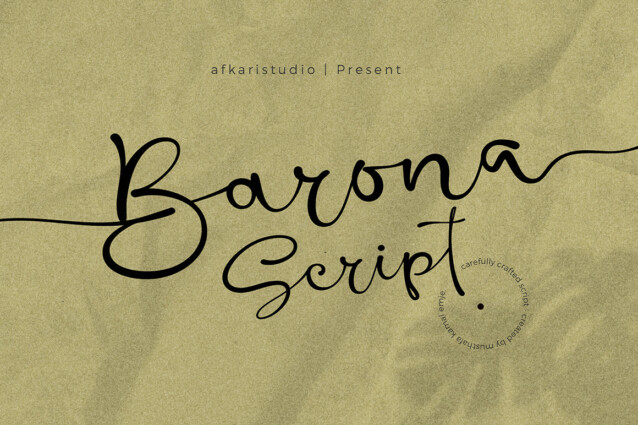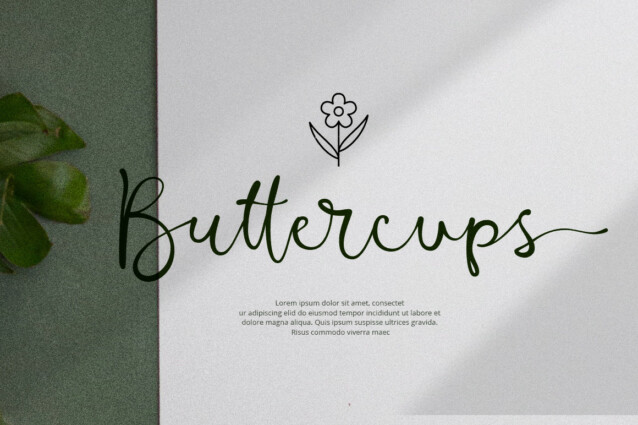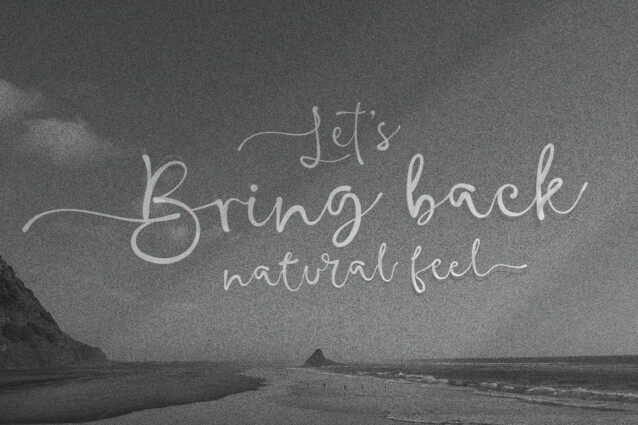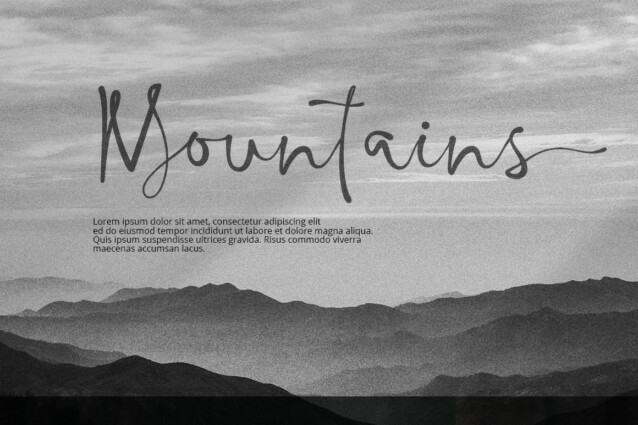
Barona Font
Barona Font exudes timeless elegance with its graceful handwritten brush strokes. This font embodies a contemporary calligraphy style that seamlessly blends sophistication and playfulness, making it the ultimate choice for elevating your branding and digital designs.
Barona Script offers a treasure trove of alternative glyphs and ligatures for endless creative possibilities. Whether you’re crafting quotes, logos, social media content, websites, blogs, or invitation cards, this font is your artistic companion.
Barona Script – Handwritten Signature Font